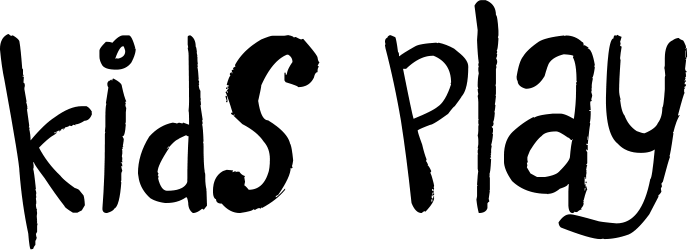
Kids Play Font
Get this adorable font that is cute, and you will have playful typography! The Kids Play font is a kids’ font but with separate thin lettering. This has the letterforms needed for you to achieve a fun, beautiful text or design that will look wonderful.
Have in mind, the Kids Play font does not include capital letters, but an exciting design will be the outcome! It will look brilliant in places like comics, cartoons, t-shirts, birthday cards, and more.